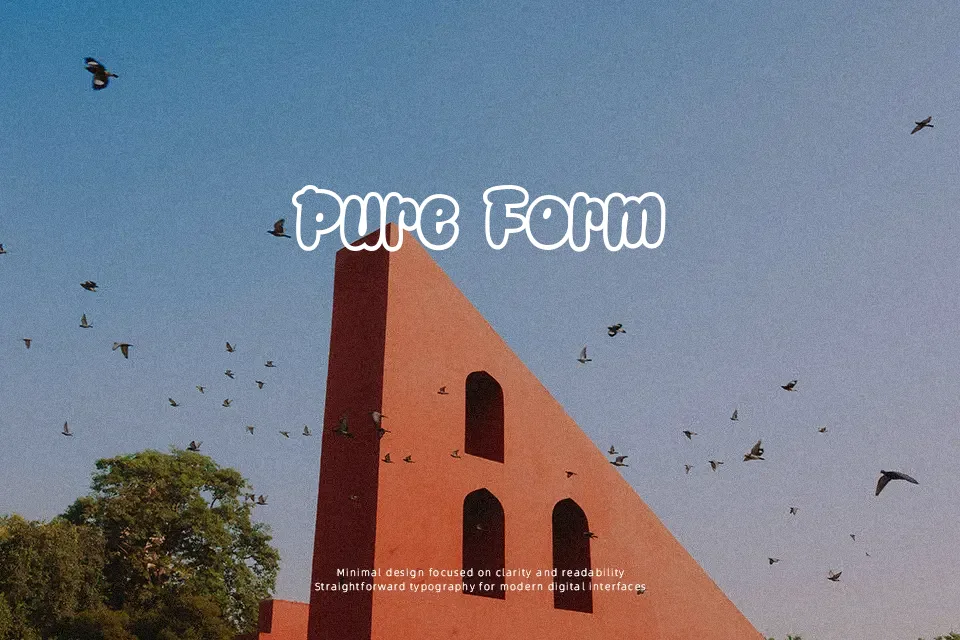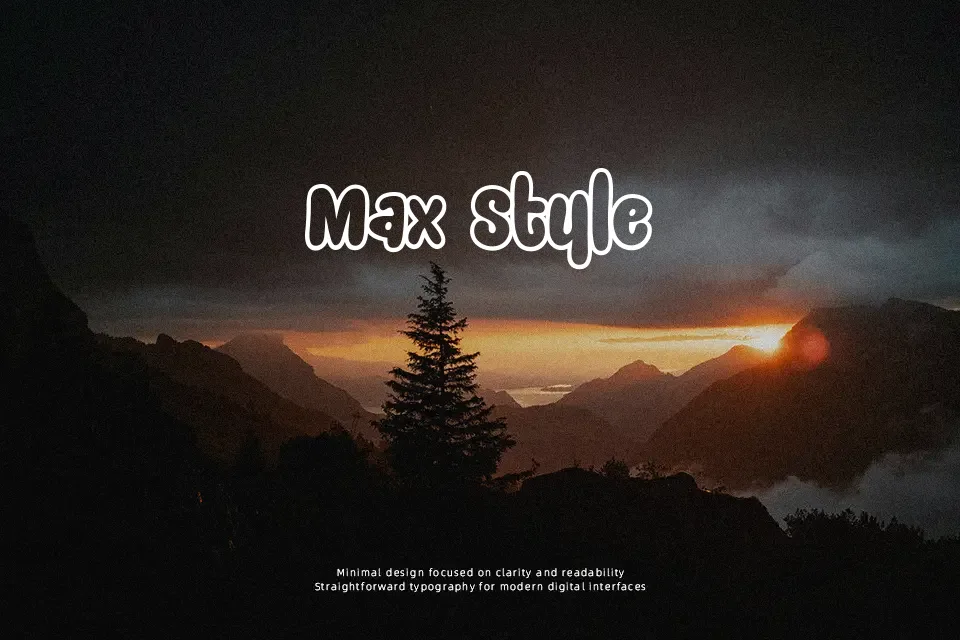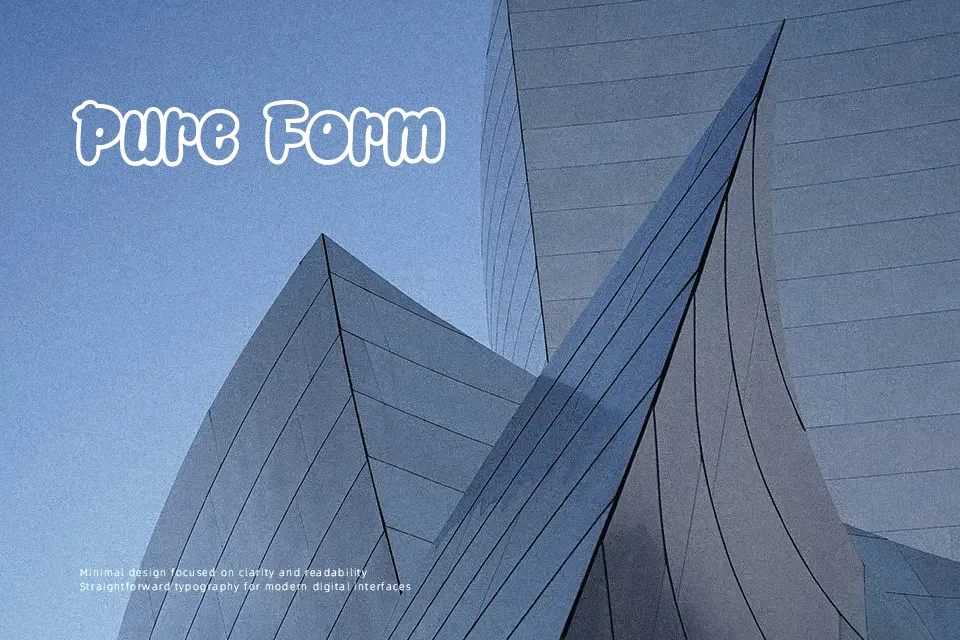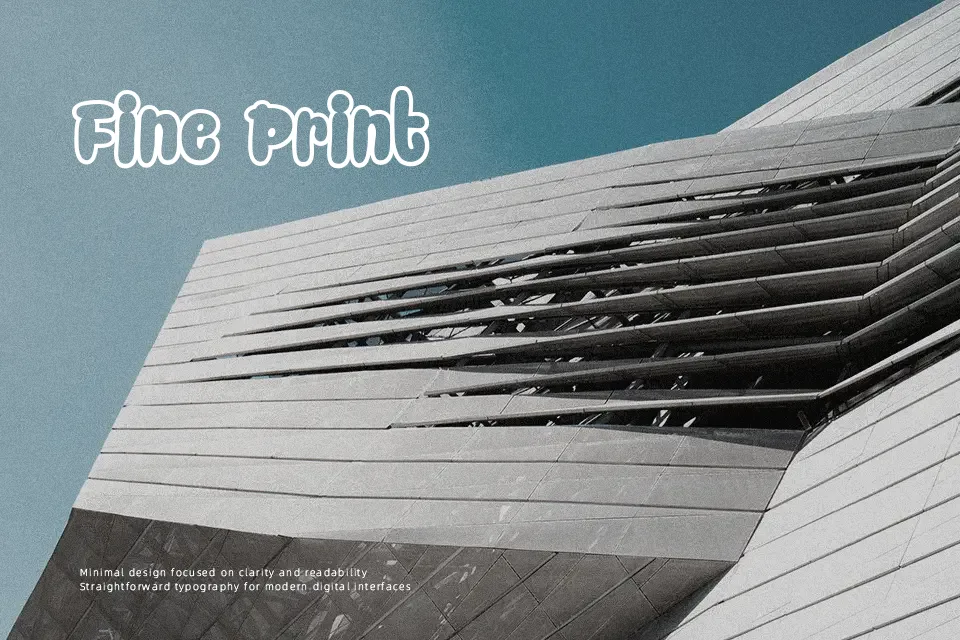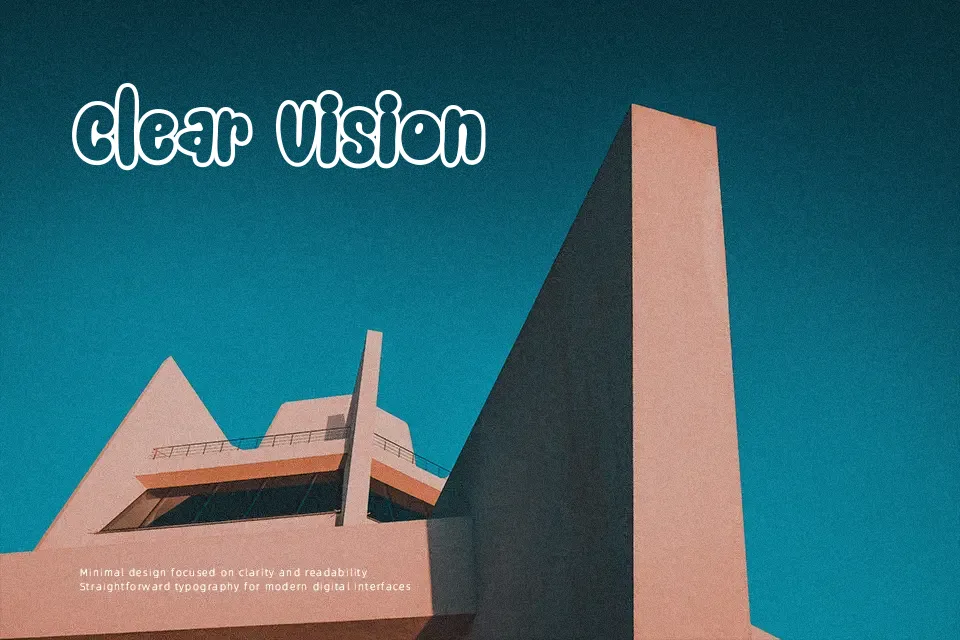
Snacker Comic Font
Snacker Comic Font uses heavy, rounded forms and smooth curves to create a soft cartoon display look. Its broad strokes give uppercase and lowercase letters a substantial, easy-to-notice presence, while the generally open shapes support quick recognition in large words. The typeface works most naturally for short headlines, playful labels, and kid-focused graphics rather than dense composition. At medium and large sizes, the bold construction keeps the text clear; however, its decorative weight becomes tiring in extended passages and small captions. It is a practical choice when a friendly, comic-like headline needs more visual character than a plain sans serif.
Best For: children’s book covers,comic-style posters,snack packaging,playful social media graphics